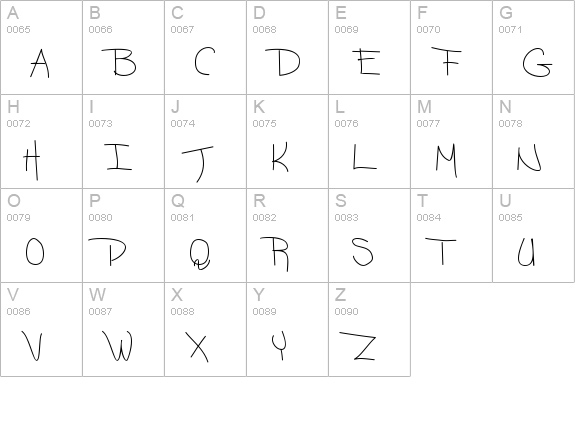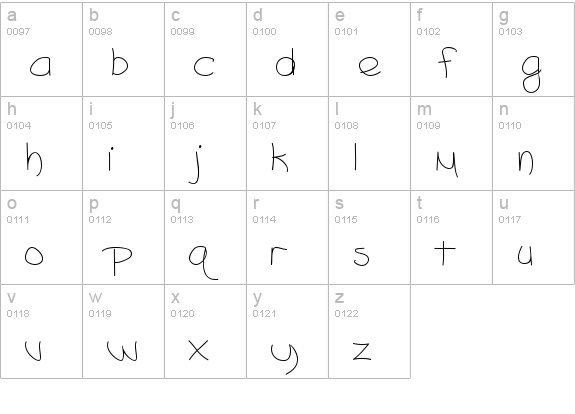
Ashford Font Details
Ashford font is a modern and elegant typeface that exudes sophistication and style. With its sleek lines and unique design, Ashford is perfect for a wide range of projects, from branding to editorial design. This versatile font offers a clean and professional look that will elevate any design it is used in. What makes Ashford font even more appealing is that it is available for free download at FontsMarket.com. This means you can easily access this high-quality font and use it in your projects without any cost. Don't miss out on the opportunity to enhance your designs with the beauty of Ashford font - download it for free today!